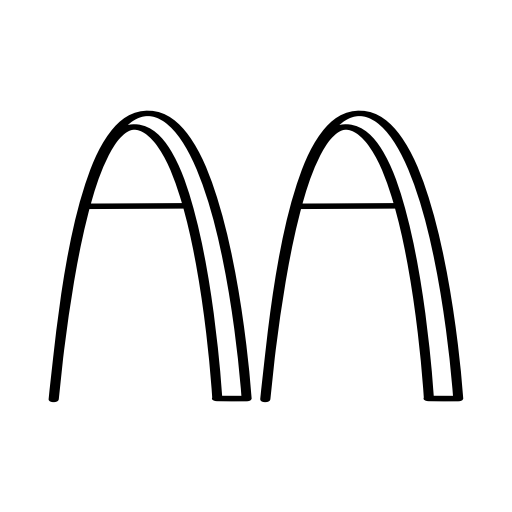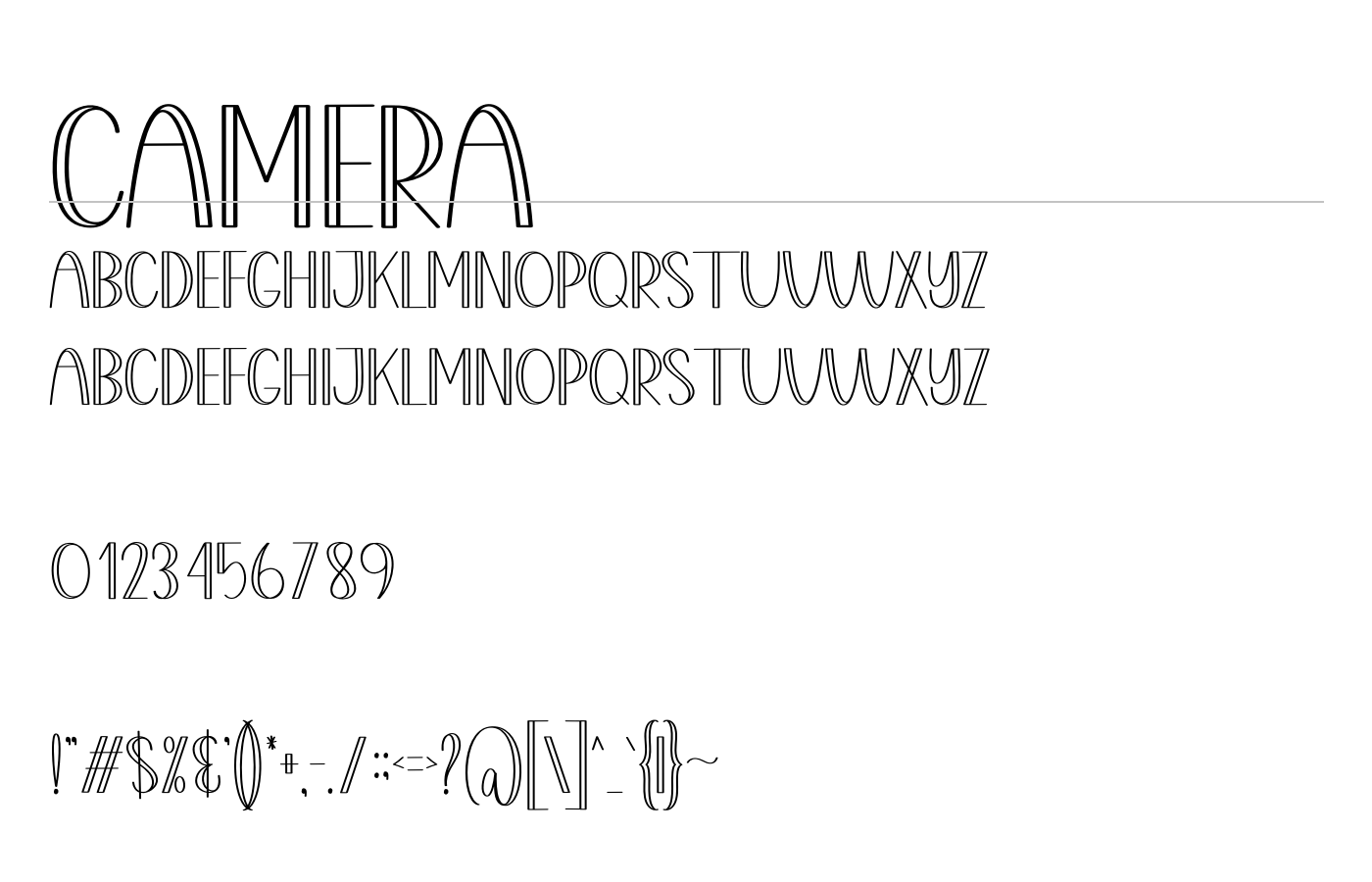
Camera Font is a thin, condensed sans serif typeface with an elegant, artistic flair, characterized by tall, narrow letterforms and delicate lines that create a sophisticated yet quirky look. Its high x-height and fine strokes give it a modern, stylish feel ideal for creative branding, fashion, and editorial uses where a unique, eye-catching display font is needed. This font works best in headlines, logos, and posters where its distinctive style can stand out without compromising readability.
Camera Font